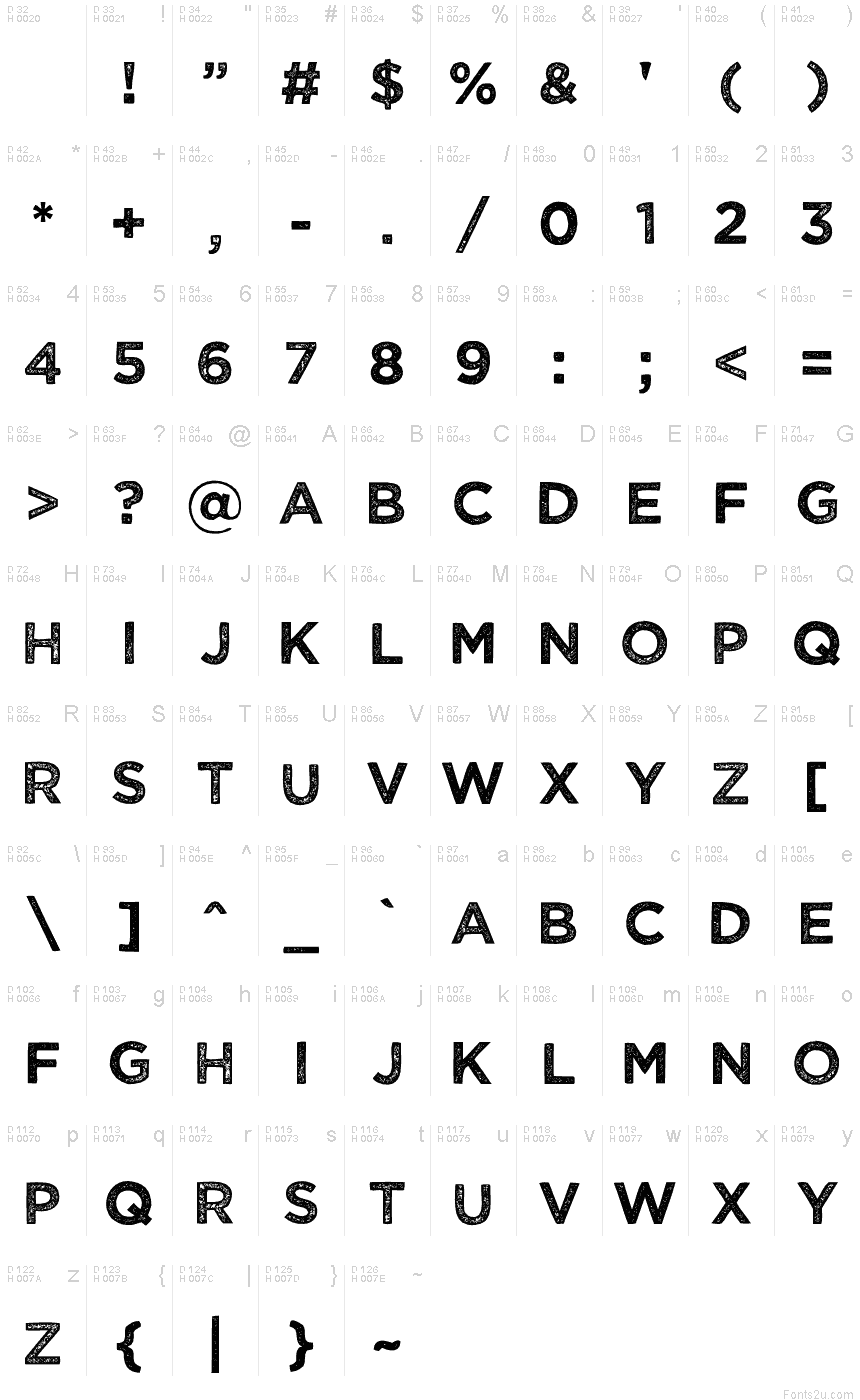
Wicked Grit is a free eroded display font with broad, uneven capitals and a dense scatter of chips cut through each stroke. Its blunt shapes feel industrial, but the irregular damage keeps the lettering closer to battered print than clean machinery.
That rough surface connects music posters and streetwear graphics with adventure-game title screens. It can also give craft beer packaging a scuffed, hard-used label style. The font is best suited to audiences drawn to punk, metal, skate, and other deliberately distressed graphics.
Wicked Grit